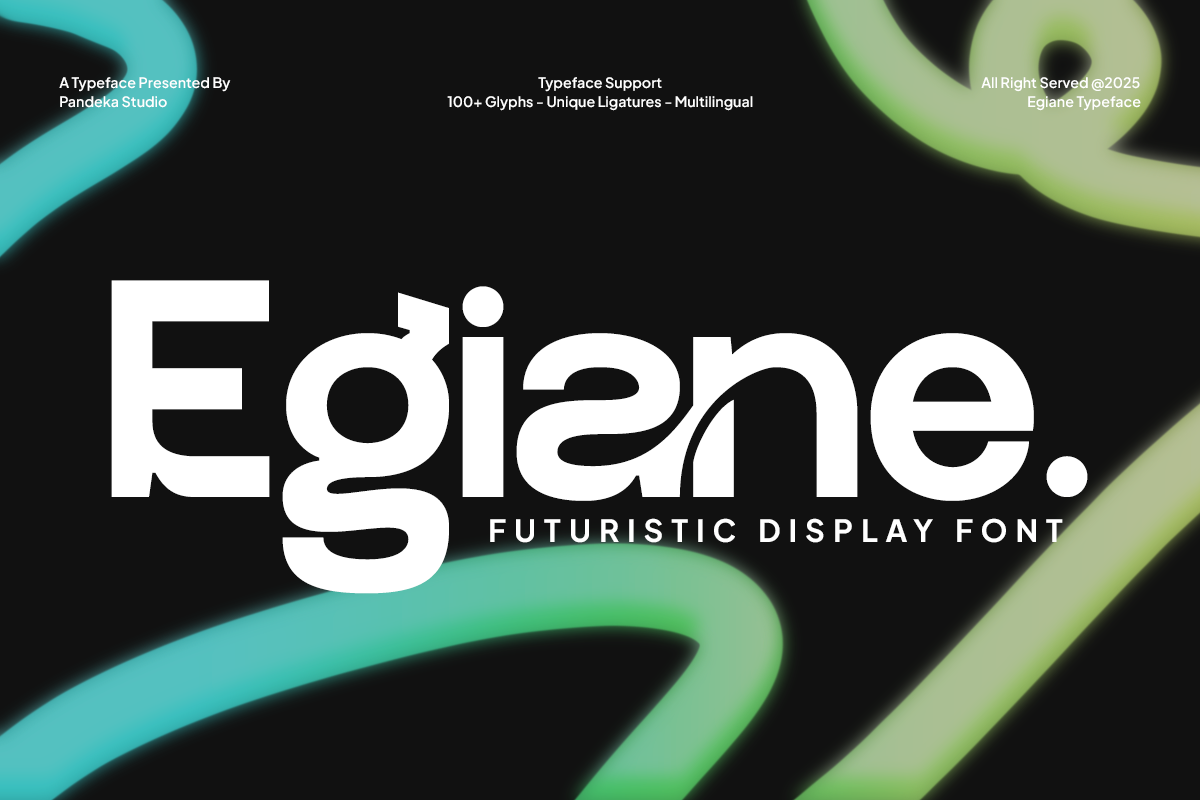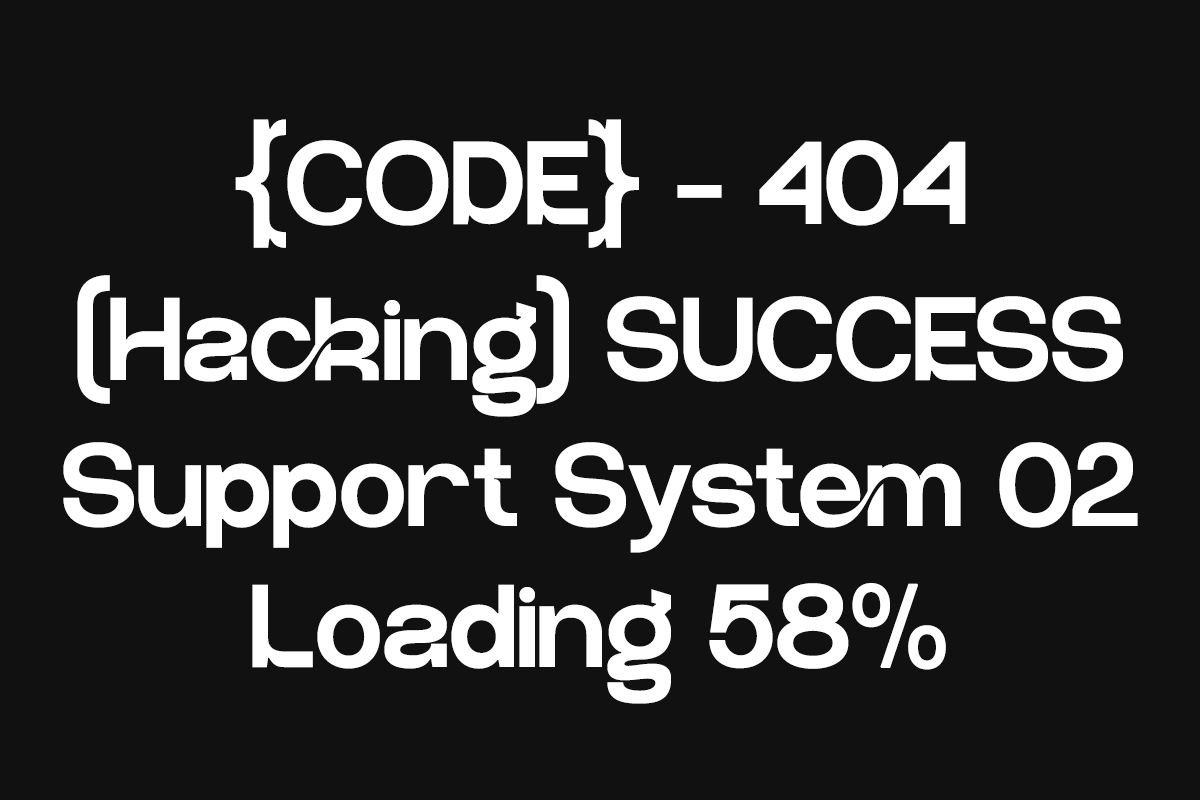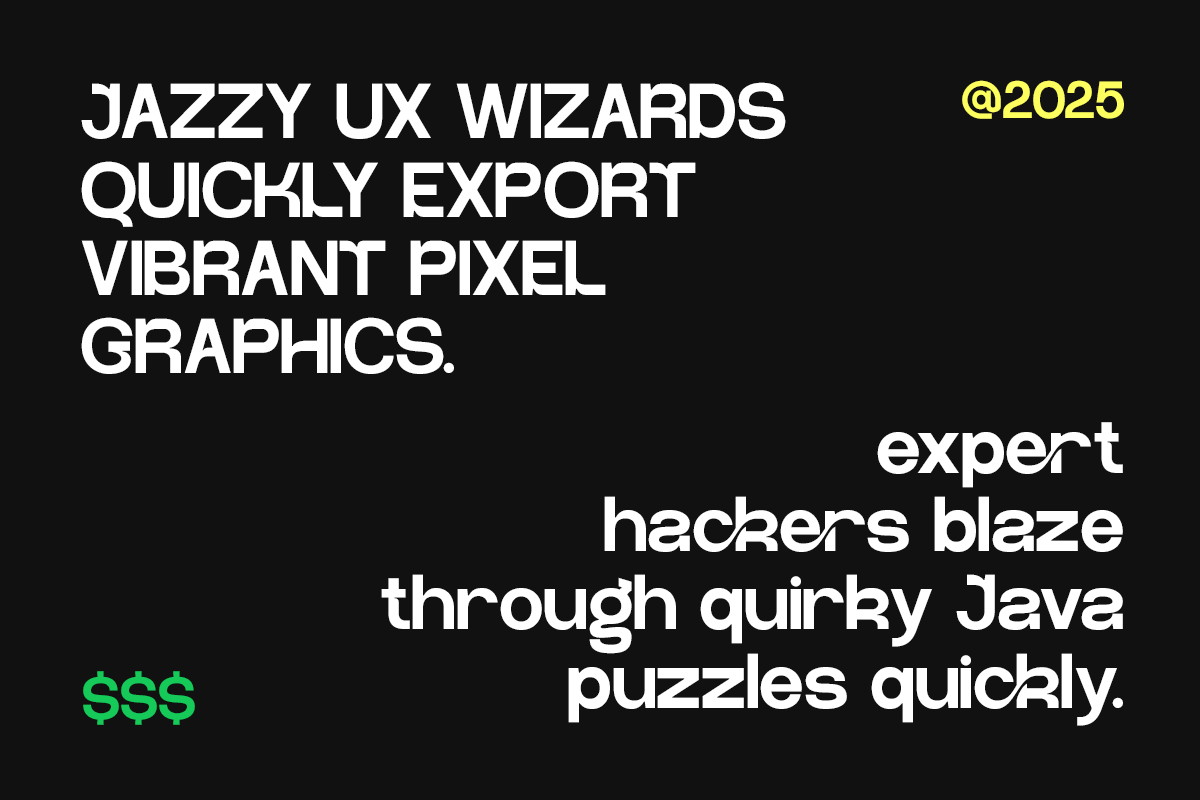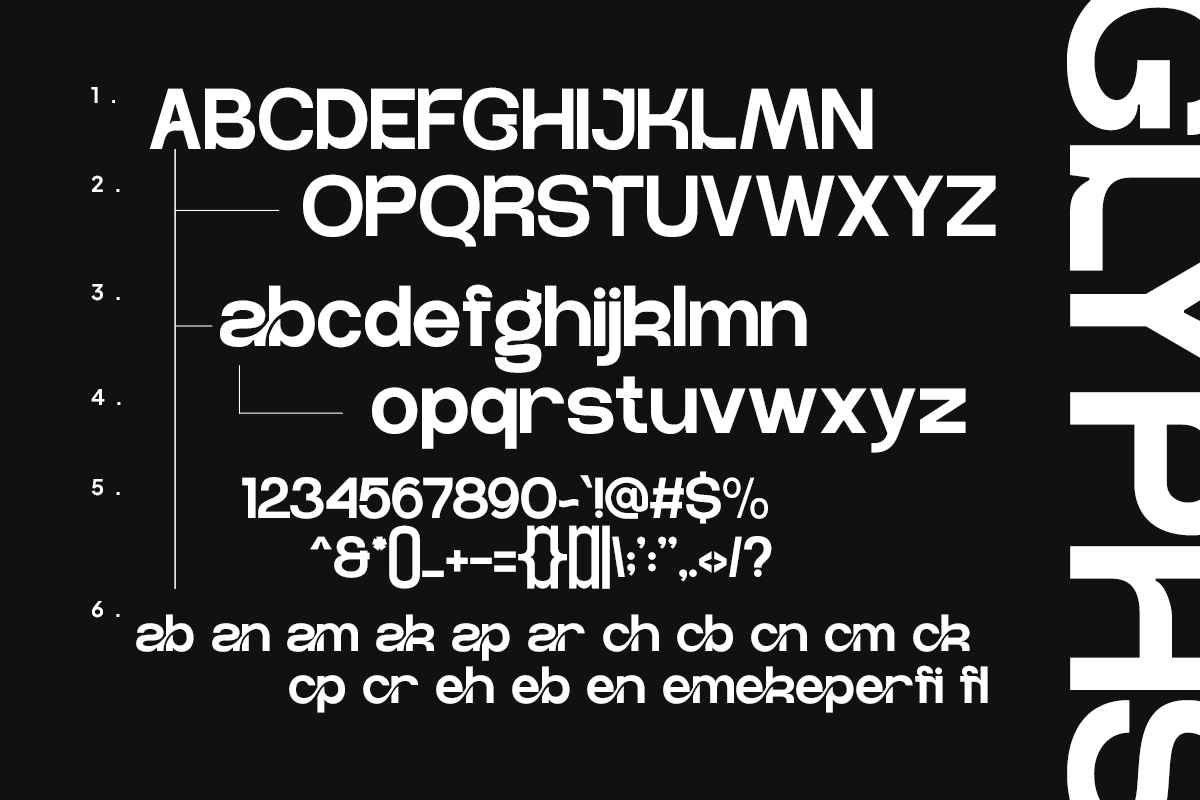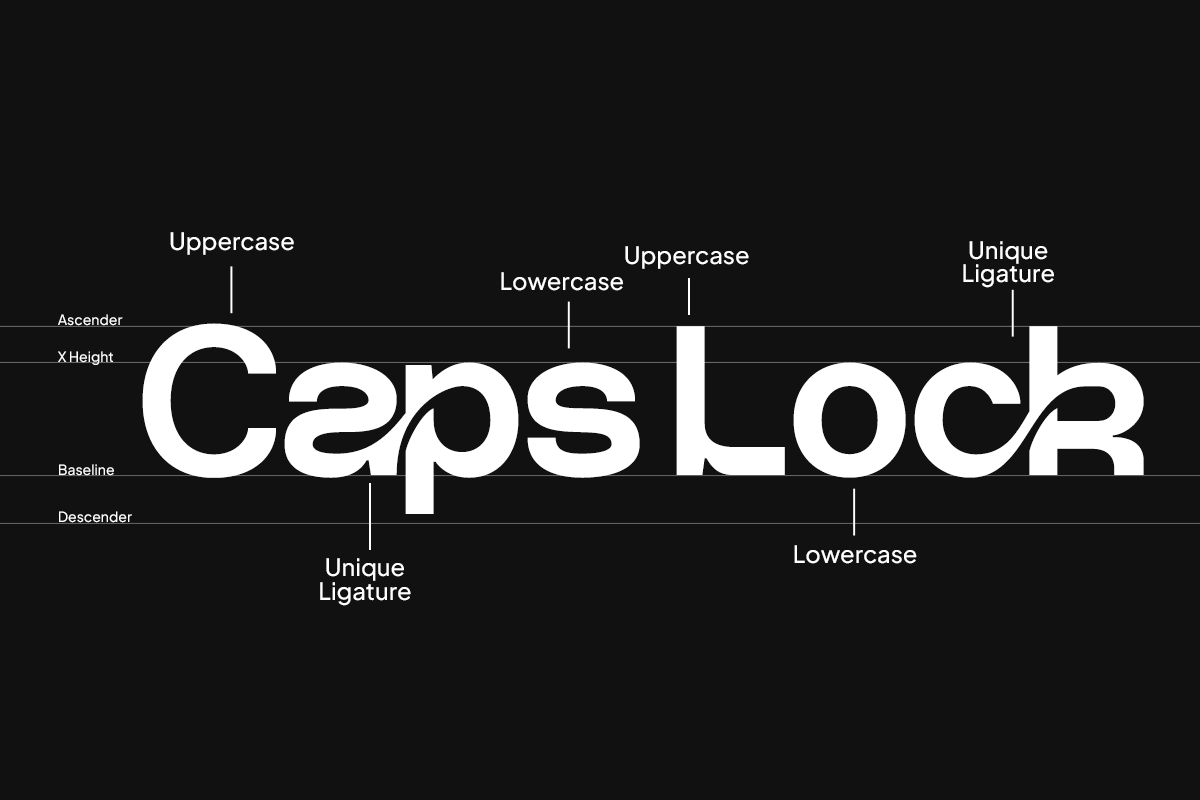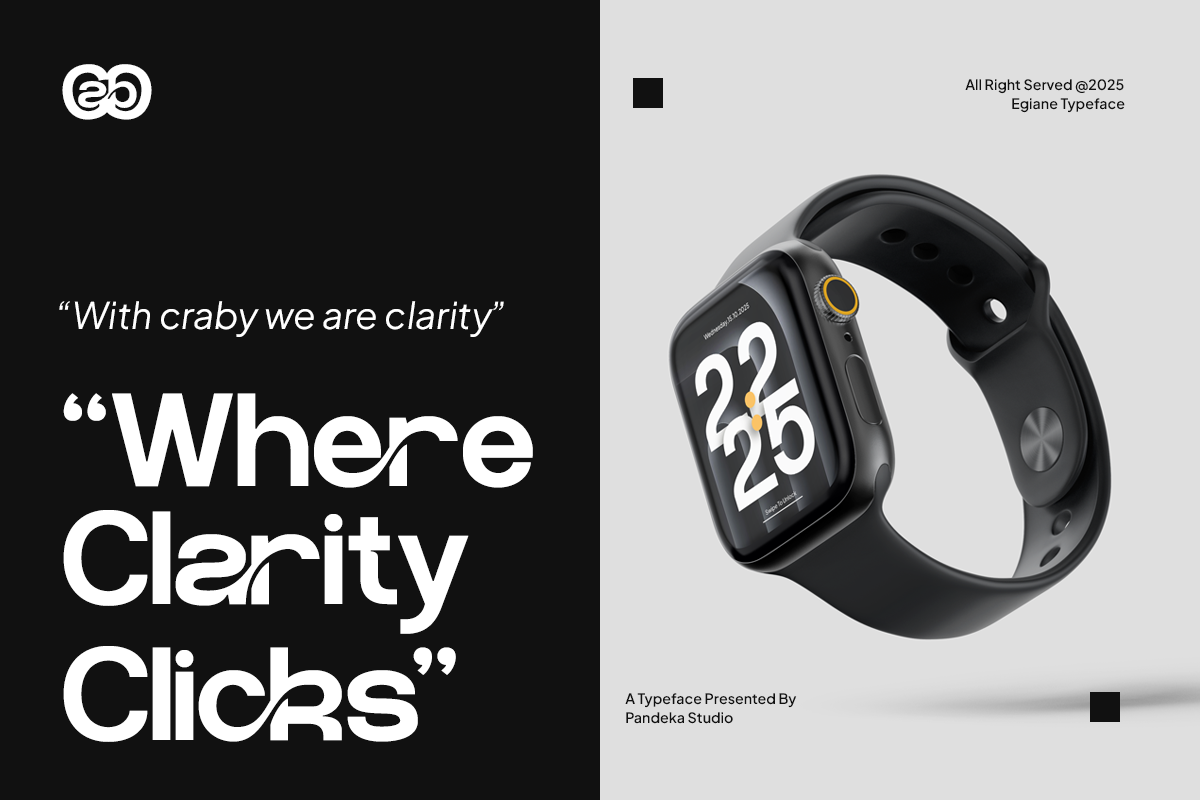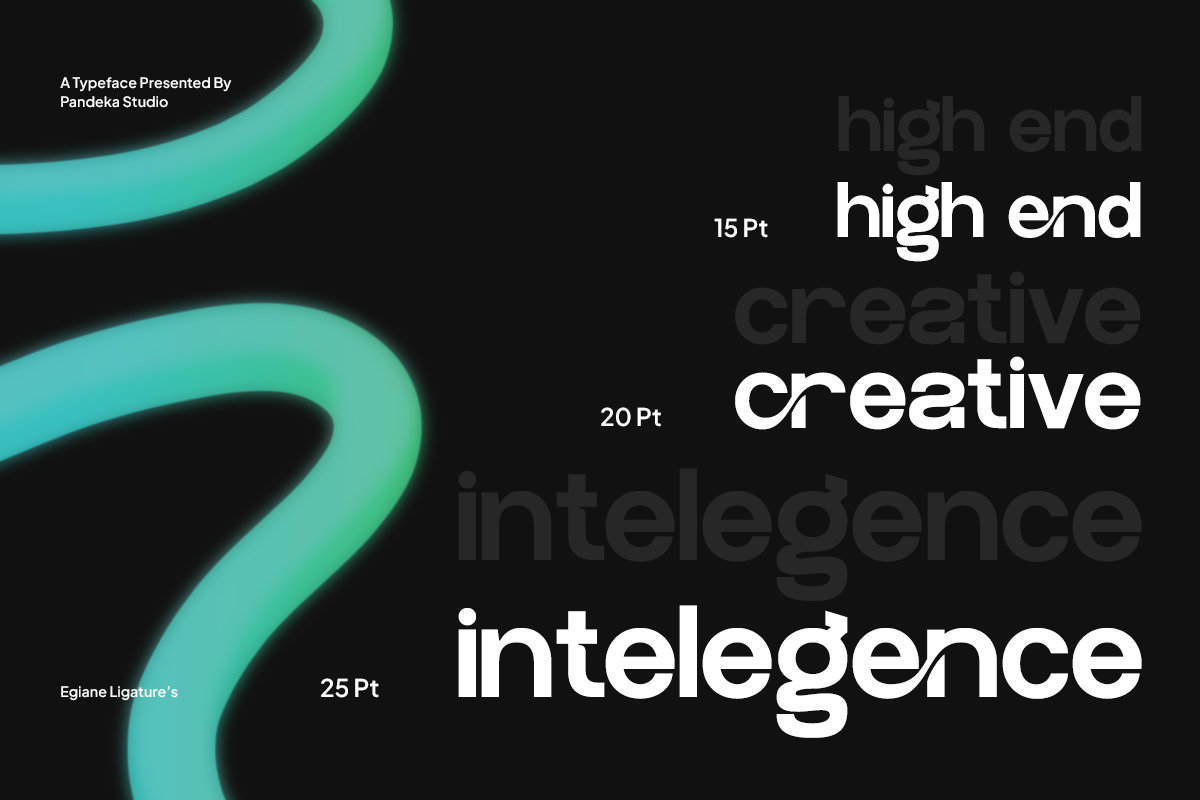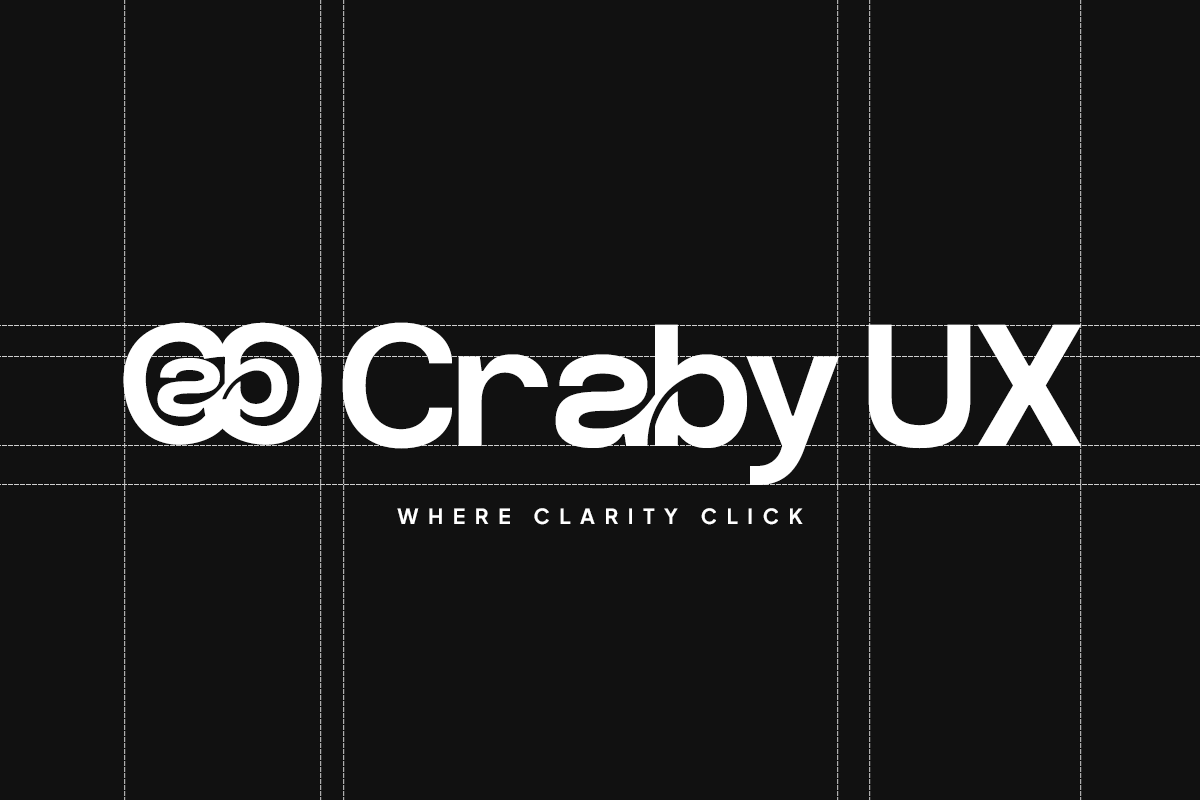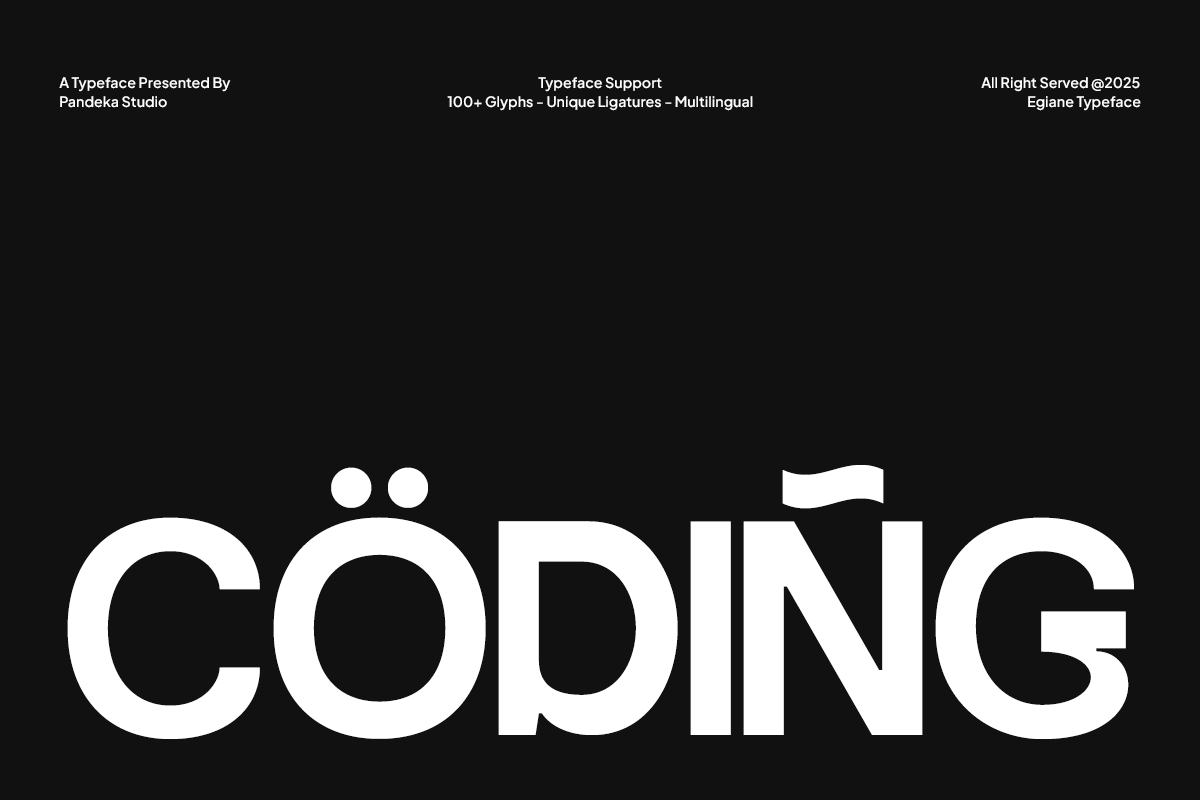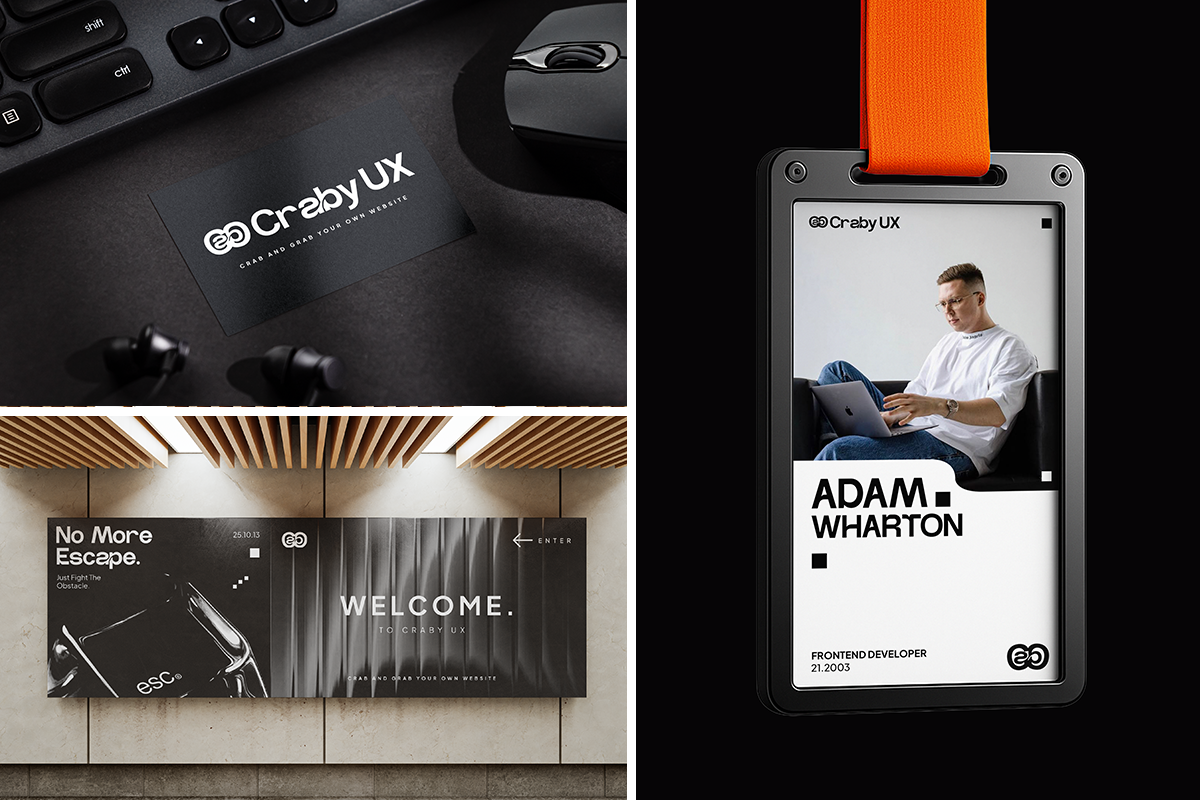
Egiane - Futuristic Display Font
Egiane is a sleek and modern display typeface inspired by futuristic aesthetics and digital innovation. With its clean geometric construction and minimalistic form, this font delivers a contemporary and high-tech visual style suitable for modern brands and creative industries.
Designed to express clarity and innovation, Egiane perfectly fits branding projects, tech startups, UI/UX interfaces, digital posters, and creative corporate identities. Its distinctive character shapes make it ideal for both display and headline use, ensuring your design stands out with a bold and professional appeal.
Egiane comes in one regular style and includes 17+ ligatures, providing flexible typographic combinations to enhance visual creativity. It supports uppercase, lowercase, numbers, punctuation, and multilingual characters for global usability.
- 1 Style: Regular
- Full Character Set: Uppercase, lowercase, numbers, symbols, and punctuation
- 17+ Ligatures